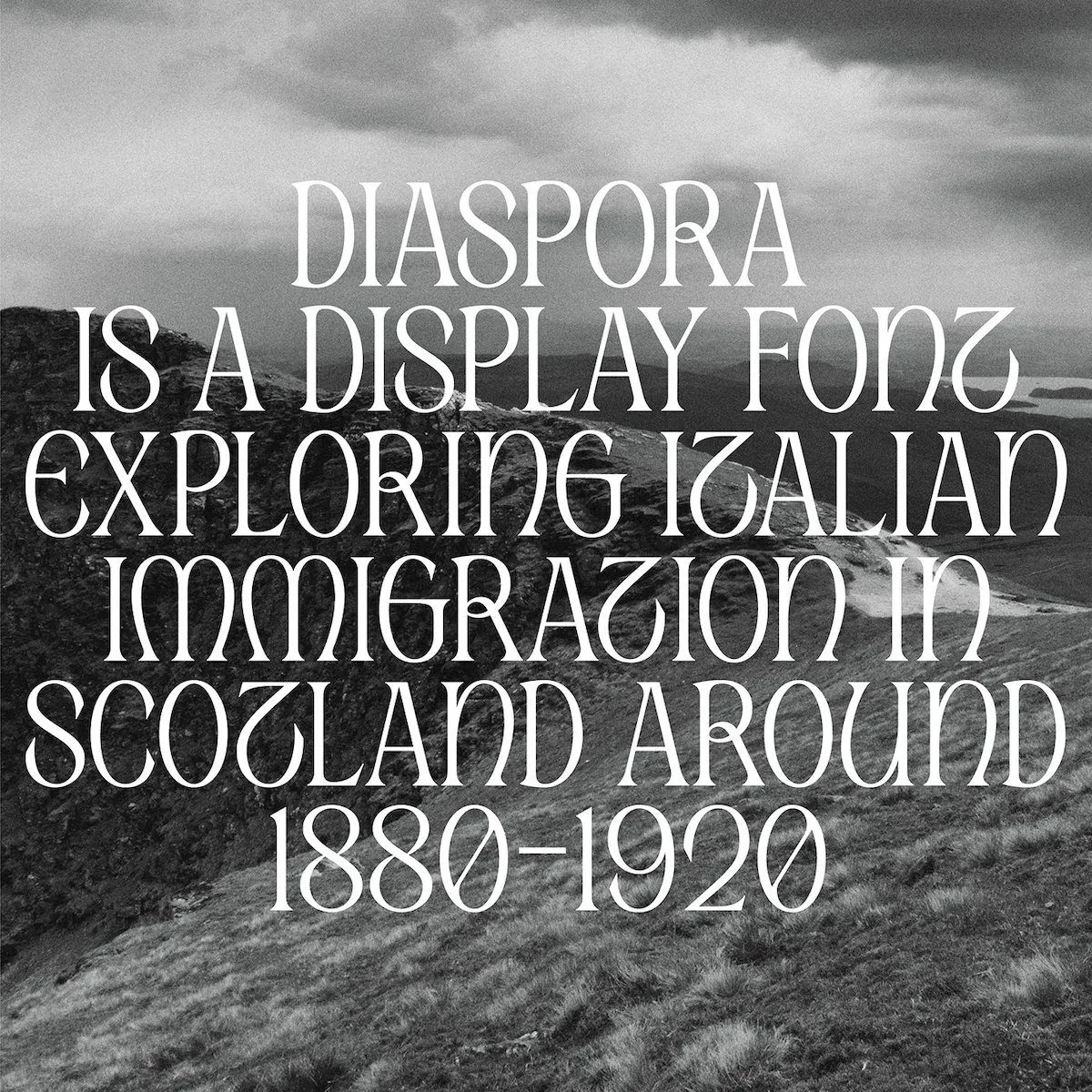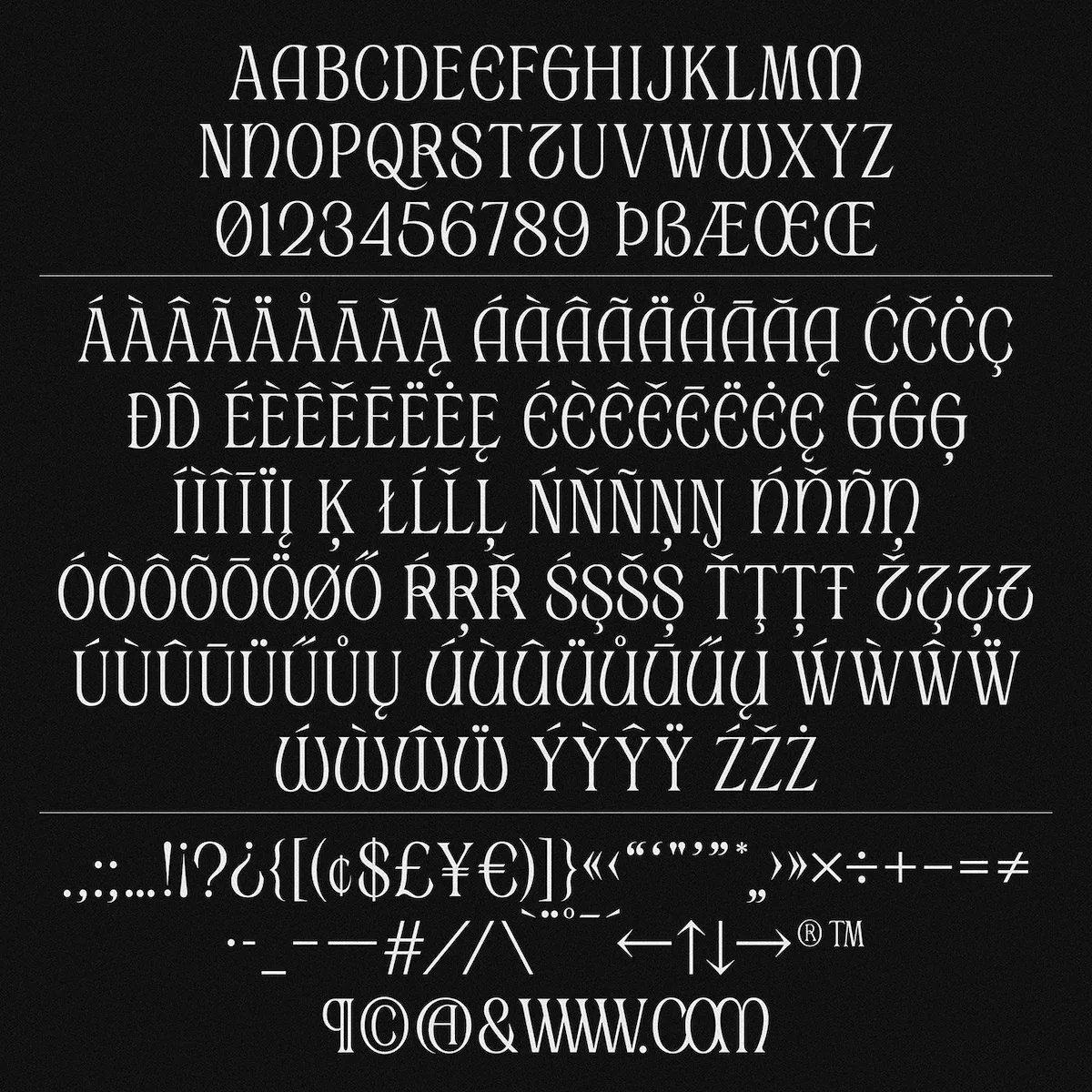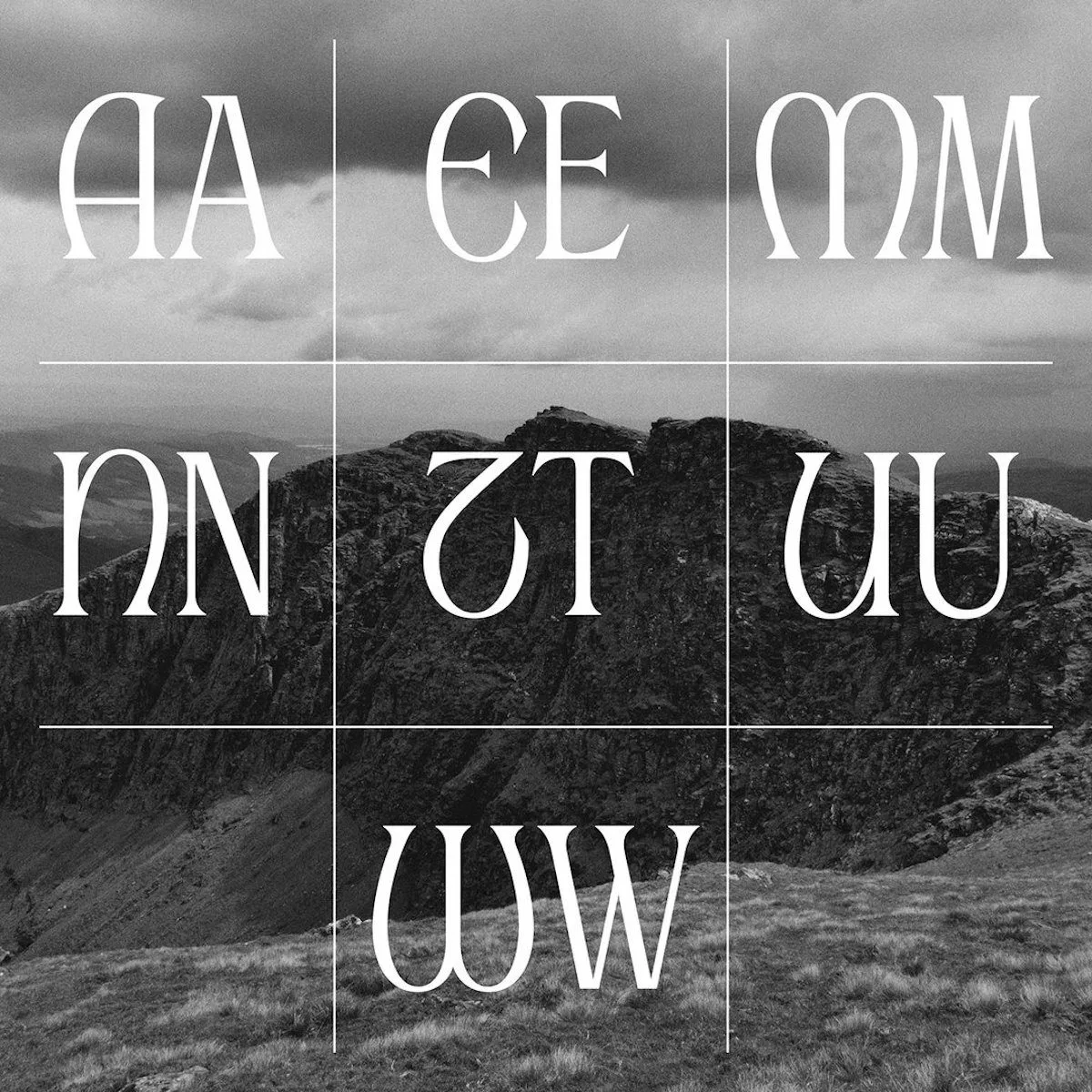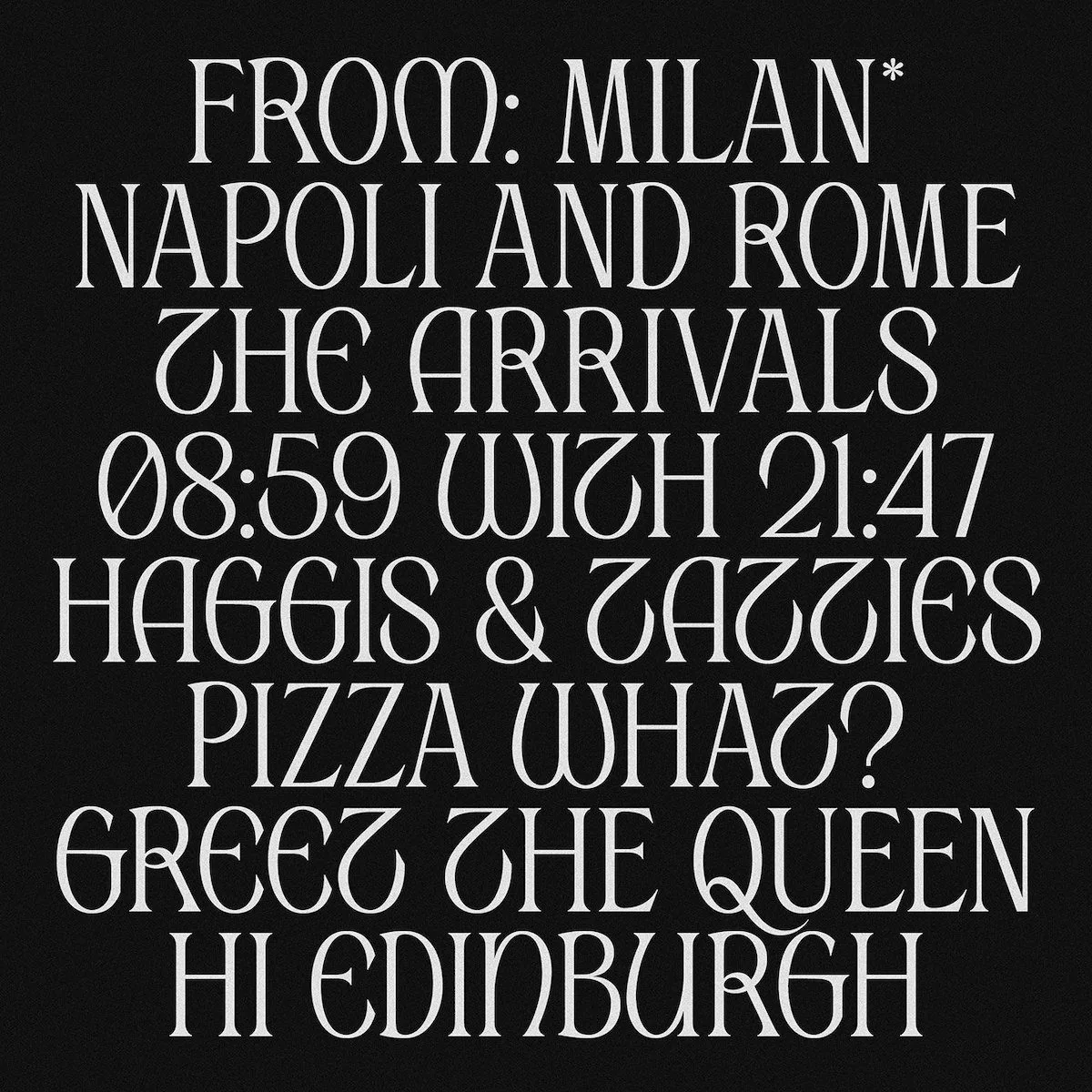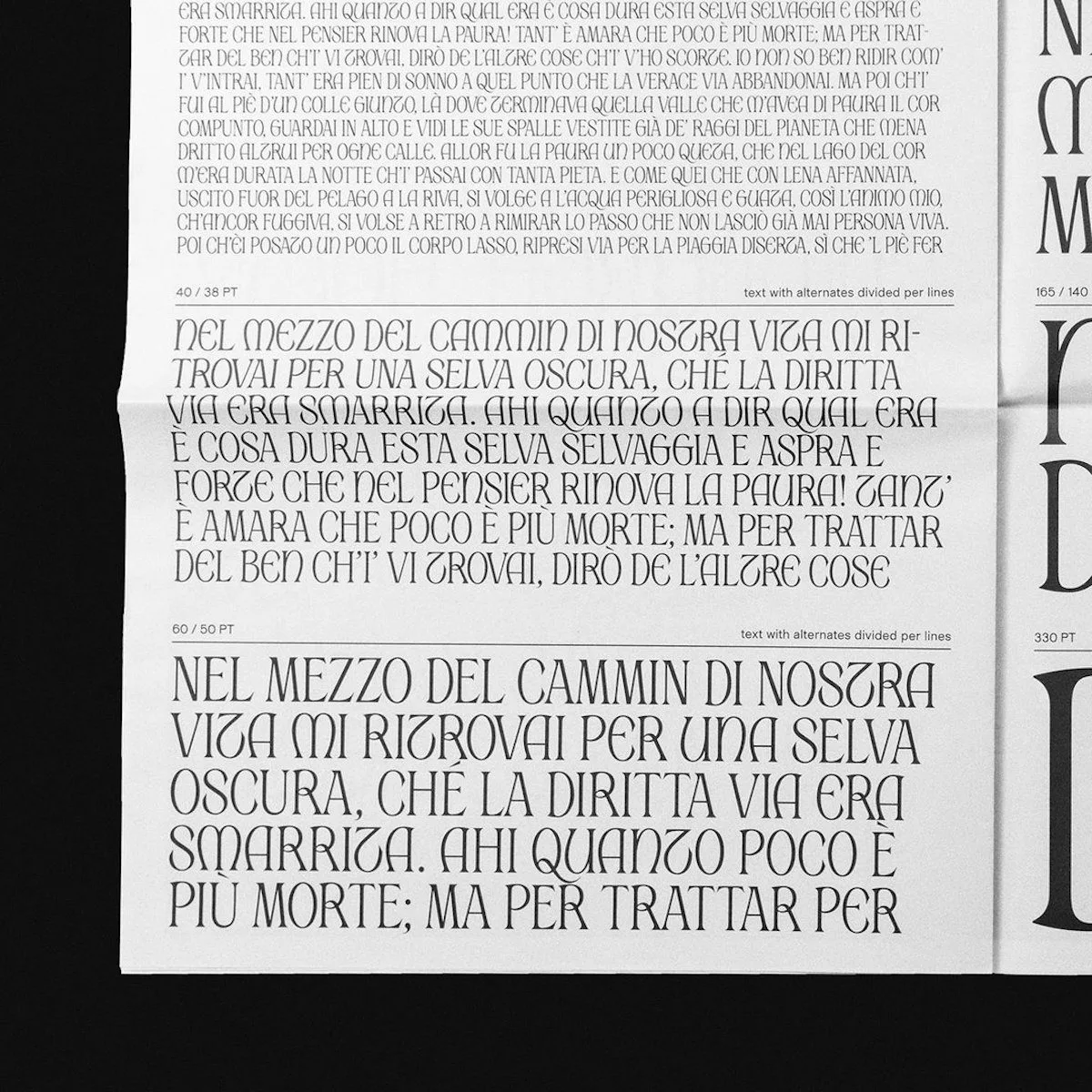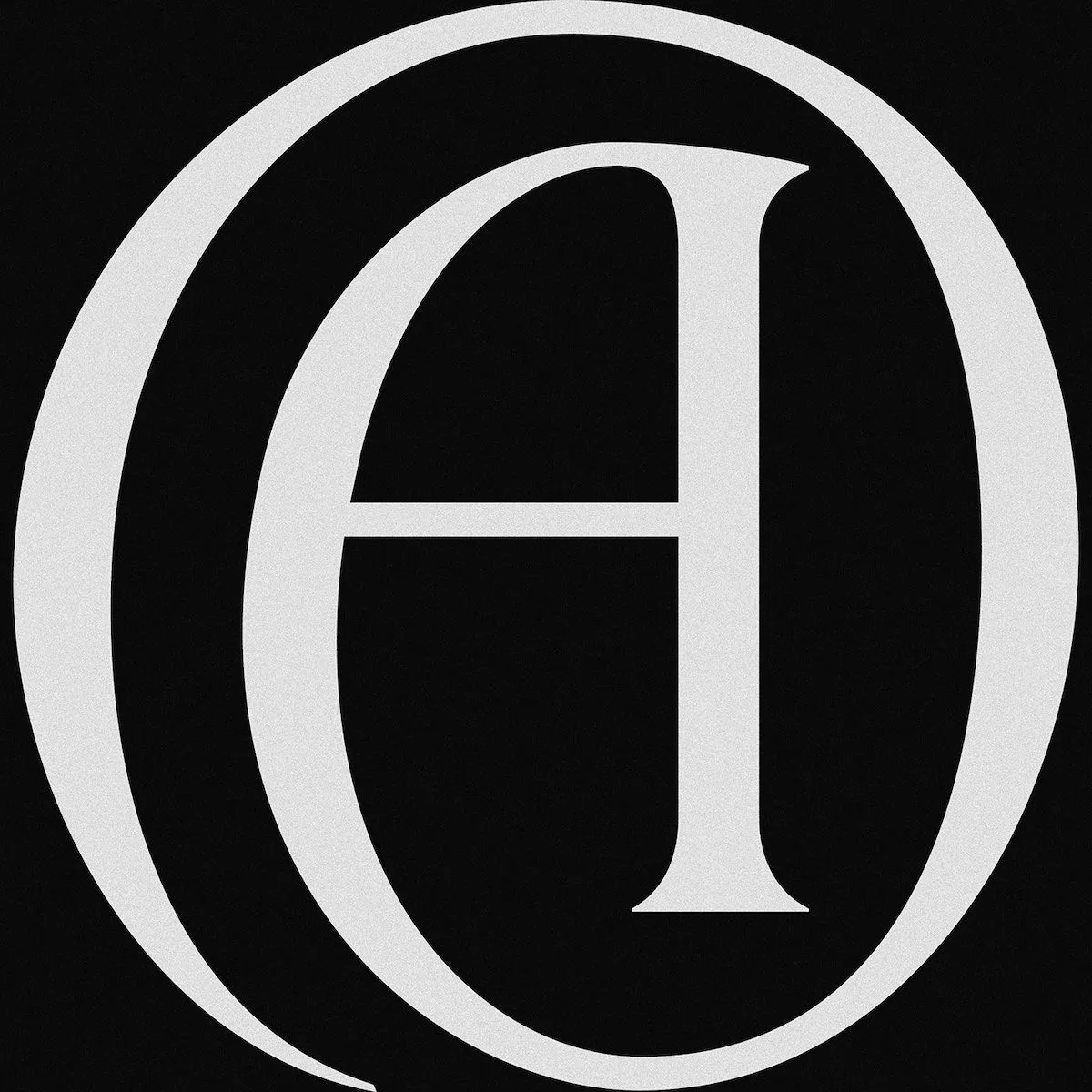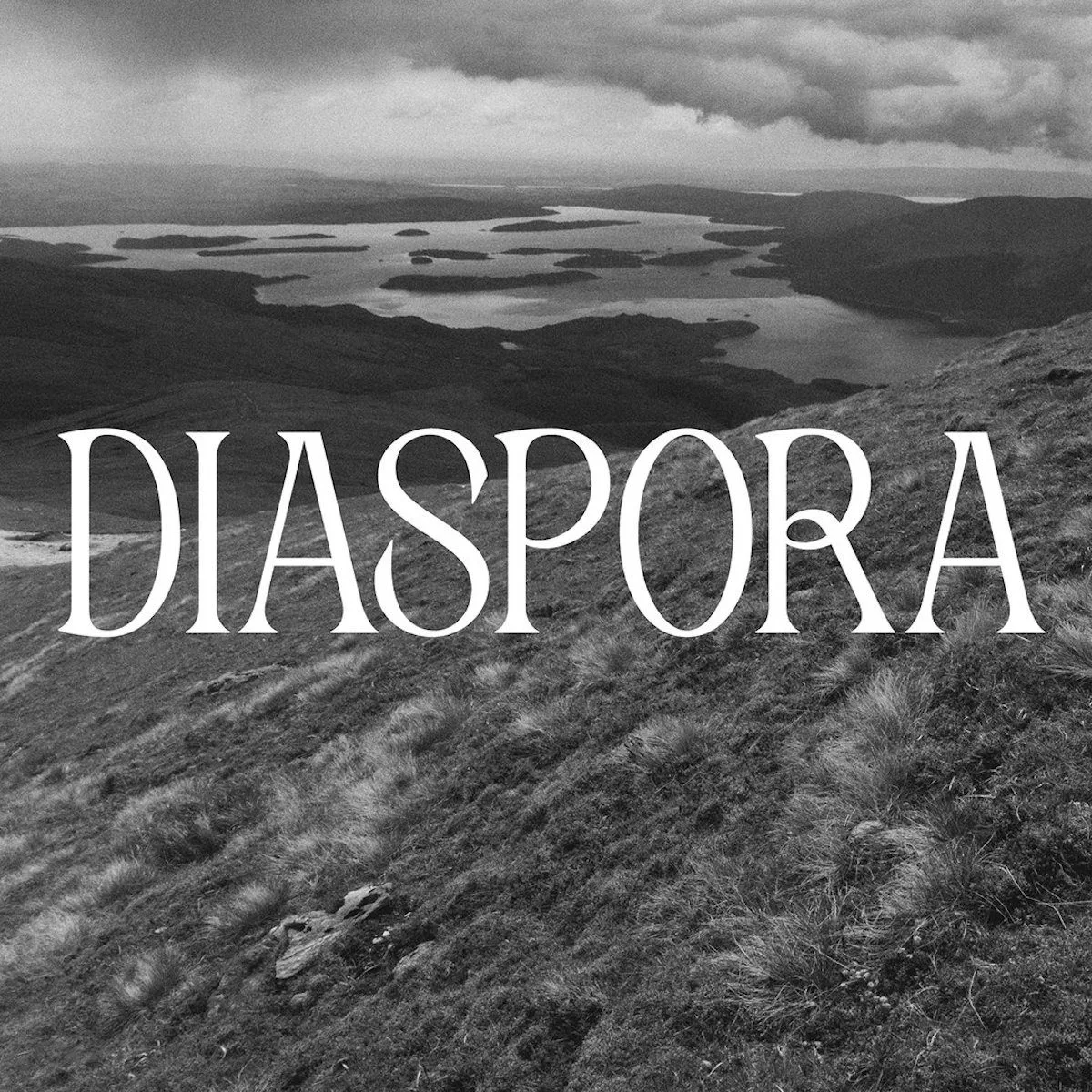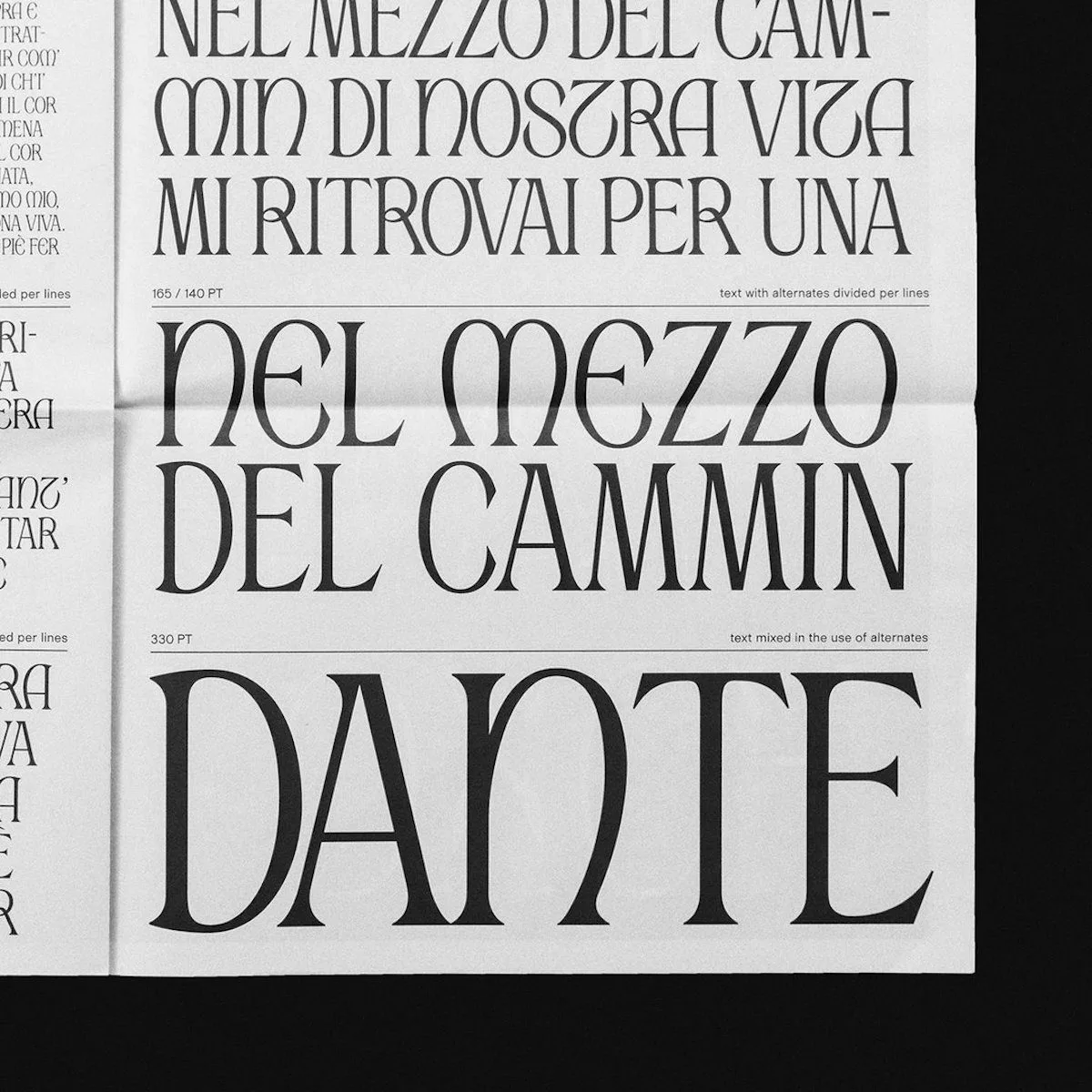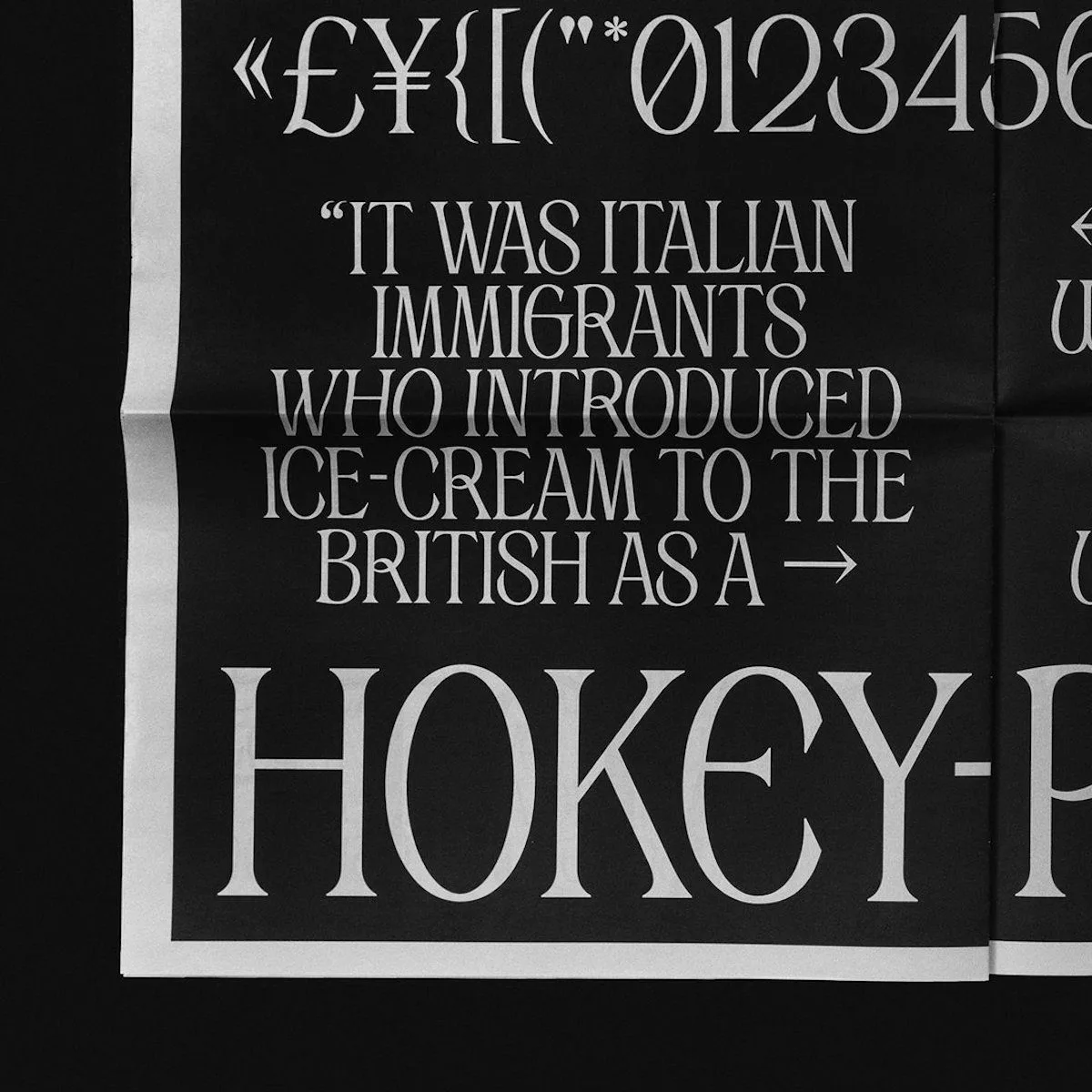
We’re super stoked to announce the release of the brand new display font, Diaspora Regular over at Type Department. Inspired by Italian immigration to Scotland between 1880 and 1920, Diaspora pays homage to the persona of Scots-Italian communities and their encapsulation of characteristics from both cultures; expressing the hybrid identities of Italians who immigrated to Scotland.
Created by the duo behind GoodEggsType Foundry, Apolline de Luca and Alessandro Prepi Sot as their debut typeface release, Diaspora feels incredibly sophisticated, conceptually insightful and masterfully well crafted.
The display fonts concept is translated into its multilayered construction, which includes the addition of seven alternatives for the letters A, E, M, N, T, U, V and W. ‘To underline the concept of immigration by the means of type-design,’ Diaspora’s creators explain, ‘the traditional and iconic aspects of lettering from both countries are emphasised’…
‘While having their own characteristics, Diaspora’s letters are designed on a single basic structure, helping to create a harmonious set. Each user can develop their own identity of the font using alternates. The font offers the possibility to create a typically Roman or Gaelic text style, or to create a hybrid text that sees both cultures coexist’.
With a total glyphset of 306 and OpenType features including uppercase, lowercase, punctuation & symbols, diacritics and stylistic set 1 with 7 alternates, Diaspora is a stunning addition to your font library; offering a rich set of visual and cultural references at the core of its foundation. Head over to Type Department to check it out now!